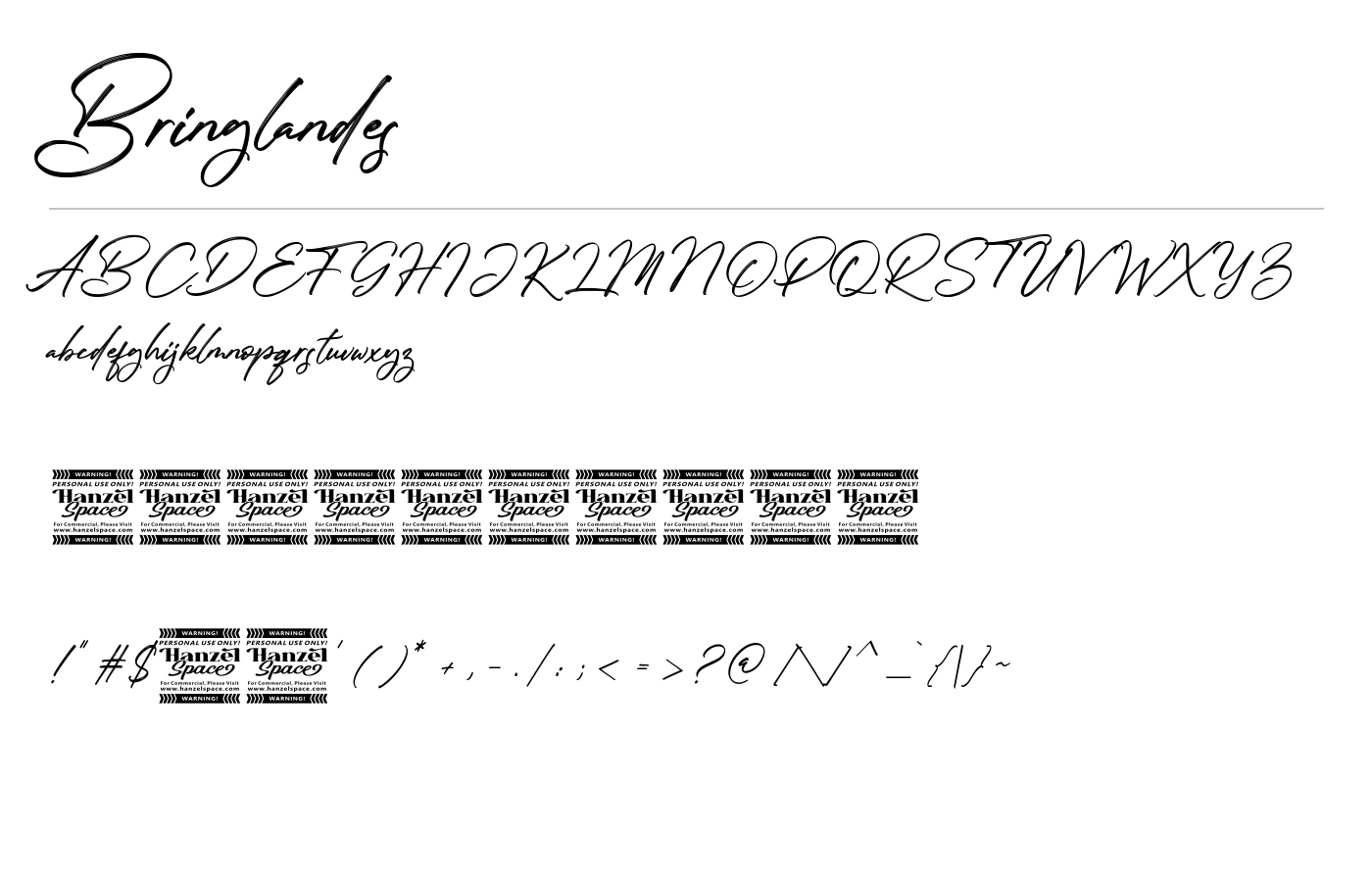
Bringlandes is a delicate, elegant script font with a handwritten feel, featuring slender, flowing strokes and a graceful slant that evoke sophistication and charm. Its thin weight and airy letterforms make it ideal for branding, invitations, and stylish headlines where a refined, personal touch is desired. This font suits creative projects that seek to convey elegance, warmth, and a contemporary yet classic vibe.
Bringlandes Font
About Bringlandes Font